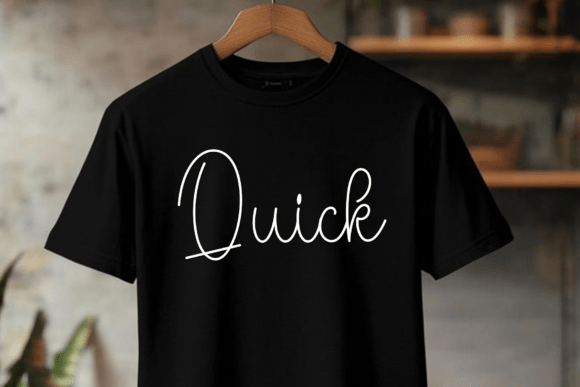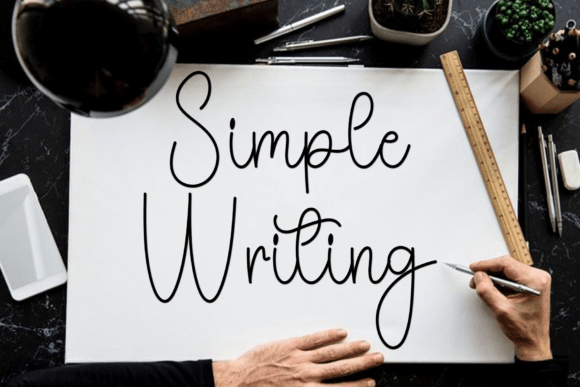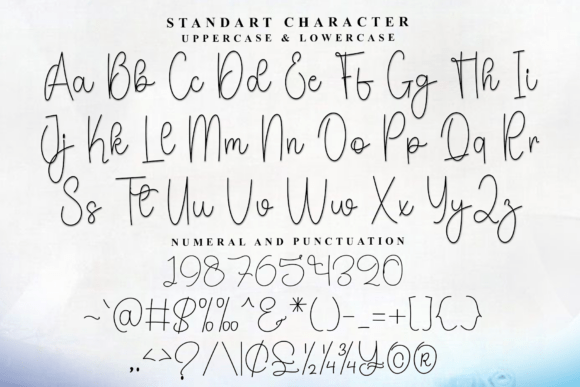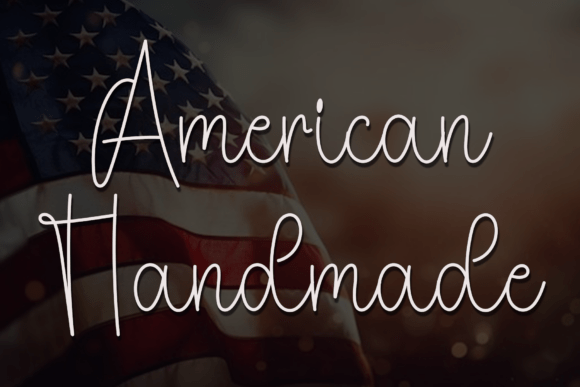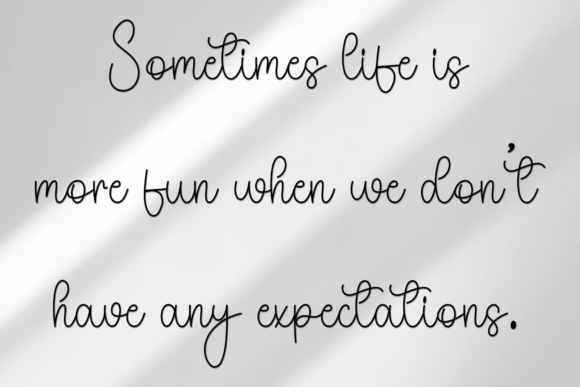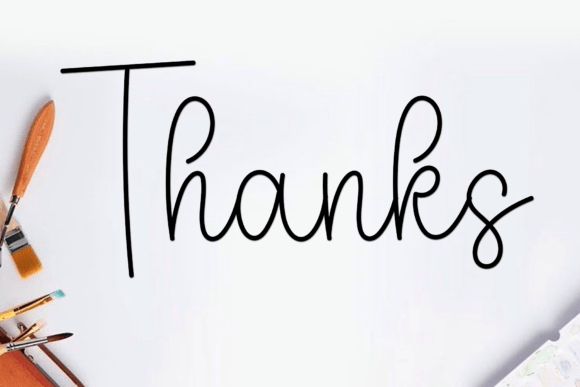
Discover the Beauty of Good Amazing Font: Elevate Your Designs with a Unique Touch
In the world of design, fonts play a crucial role in conveying messages, evoking emotions, and creating a lasting impression. Among the numerous fonts available, Good Amazing Font stands out for its soft, unique touch and eye-catching appearance. This beautiful font is designed to add a special character to your designs, making them more meaningful and versatile for future use.
The Distinctive Features of Good Amazing Font
Good Amazing Font boasts distinctive strokes that set it apart from other fonts. Its unique design makes it perfect for a wide range of creative projects, from crafts and designs to other artistic works. The font’s versatility is further enhanced by its various characters, which provide endless possibilities for designers and crafters.
Enhance Your Designs with Good Amazing Font
Good Amazing Font has the power to transform your designs and make them appealing to a wide range of audiences. Its soft and unique touch adds a touch of elegance and sophistication, making it perfect for designers and crafters who want to create something truly special. With Good Amazing Font, you can:
- Create stunning visual designs that capture attention
- Add a touch of elegance and sophistication to your crafts
- Develop a unique brand identity that stands out from the crowd
- Enhance your digital media, such as videos, presentations, and social media graphics
Why Choose Good Amazing Font?
Good Amazing Font offers a range of benefits that make it an ideal choice for designers and crafters. Some of the reasons why you should choose Good Amazing Font include:
- Unique and eye-catching design
- Soft and elegant touch
- Versatile and compatible with various applications
- Endless possibilities for creative projects
- Take advantage of the font’s various characters to add creativity and interest
Good Amazing Font is a beautiful and versatile font that can elevate your designs and add a unique touch to your creative projects. With its soft and eye-catching appearance, distinctive strokes, and compatibility with various applications, it’s perfect for designers and crafters who want to create something truly special. Whether you’re working on a design project, crafting a unique piece of art, or creating a stunning visual, Good Amazing Font is the perfect choice.